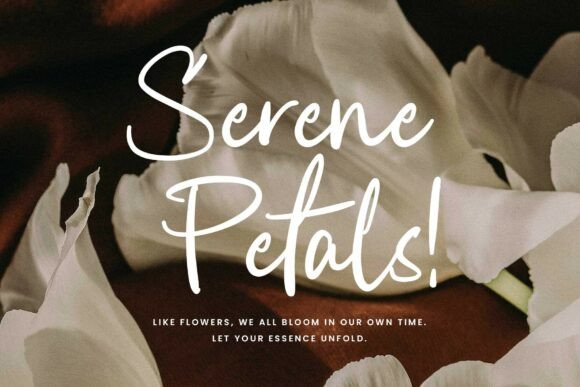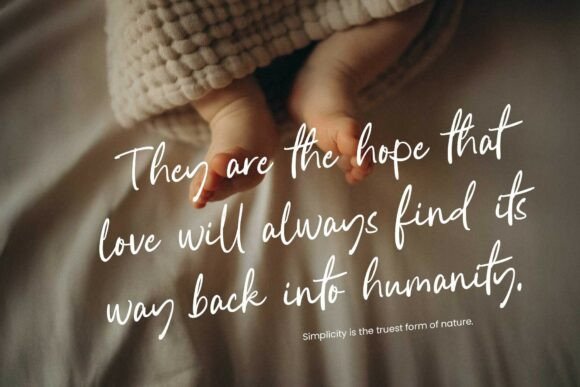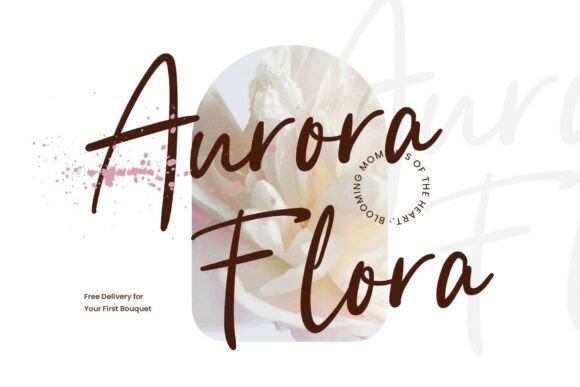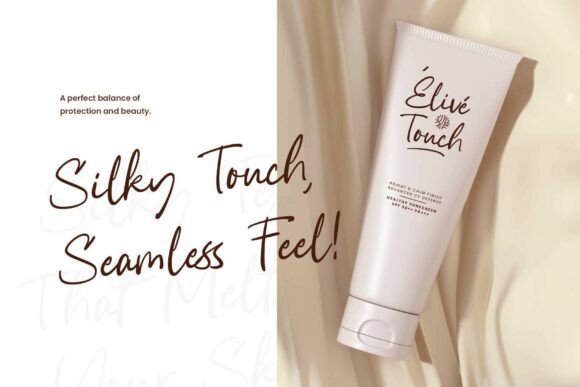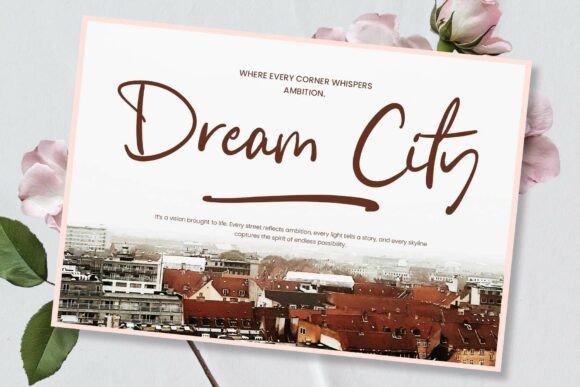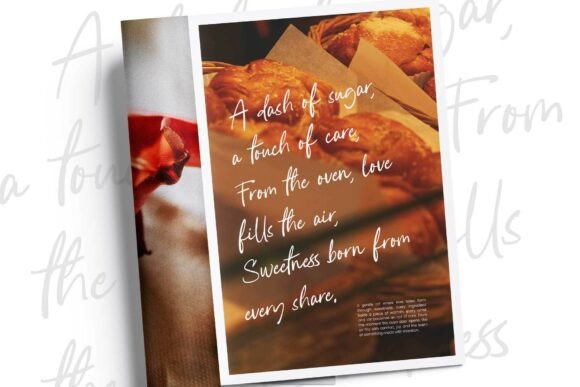
Unlocking the Joy of Handwritten Typography
Have you ever stumbled upon a beautifully handwritten note from a loved one, and suddenly, you’re swept away by the warmth and personality it conveys? For designers, capturing that same essence in their work can be a challenge, but what if you could infuse your typography with a dash of whimsy and sophistication?
Enter Belarista Font, a delightful blend of cute handwritten style and signature elegance, crafted to bring a cheerful yet refined touch to your typography. This charming font is designed to elevate your designs, making them stand out with charm and playfulness. Whether you’re working on a project for a wedding, a promotional campaign, or a fashion brand, Belarista Font is the perfect addition to your toolkit.
With its natural handwritten feel, ligatures, stylistic alternates, and swashes, Belarista Font offers endless possibilities for creative expression. As a designer, you’ll appreciate its versatility and the way it can add a personal touch to your work, making it truly unforgettable.
Belarista Font Key Features
- Font Size: 7 weights (Thin, Light, Regular, Medium, Bold, Heavy, Black)
- Unique Characteristics: Elegant, modern script font with a unique blend of cursive and sans-serif elements
- Font Style: Script font with a mix of cursive and sans-serif elements, ideal for creative and elegant typography
Belarista Font Review
I recently had the chance to work with the Belarista font, and I must say it’s a unique and interesting addition to any design project. ✨ One thing that stands out is the elegant and refined feel it brings to digital designs. The subtle nuances in letterforms and the balanced proportions create a sophisticated look that’s perfect for high-end branding or editorial content.
- ✨ The Belarista font has excellent legibility, making it a great choice for body text.
- ✨ The font’s wide range of weights and styles offer a lot of flexibility for designers.
- ✨ The font is well-suited for both print and digital applications.
However, there are a few limitations to consider. ⚠️ The Belarista font may not be the best choice for headings or titles, as it can be a bit too delicate. Additionally, some users may find the font’s style a bit too minimalist, which can make it difficult to read in certain contexts.
Overall, I think the Belarista font is a solid choice for designers looking for a sophisticated and elegant font. While it may not be the best fit for every project, it’s definitely worth considering for those looking to add a touch of refinement to their designs.
Getting the Most Out of Belarista Font
To get the most out of Belarista Font, try the following tips:
– Use it for titles and headings to add a touch of elegance.
– Pair it with bold fonts for a striking contrast.
– Experiment with different font sizes and colors to create a unique look.
Belarista Font is ideal for:
– Designing wedding invitations and stationery.
– Creating elegant business cards and brochures.
– Adding a touch of sophistication to social media graphics and blog posts.
Alternatives to Belarista Font for Designers
Montserrat is a popular sans-serif font that is highly legible and versatile. It is ideal for use in digital media, such as websites, apps, and social media platforms. Montserrat has a similar geometric feel to Belarista Font, but with a more modern and sleek aesthetic.
Comparison to Belarista Font: Montserrat is more condensed and has a higher x-height, making it more suitable for digital use. It also has a more open and airy feel, which can be beneficial for readability.
Inter is a modern sans-serif font that is designed for digital use. It is highly legible and versatile, making it suitable for a wide range of applications, from websites and apps to books and magazines. Inter has a similar clean and minimalist feel to Belarista Font, but with a more refined and sophisticated aesthetic.
Comparison to Belarista Font: Inter is more modern and sleek, with a focus on digital use. It also has a more consistent letter spacing and x-height, making it more suitable for long blocks of text.